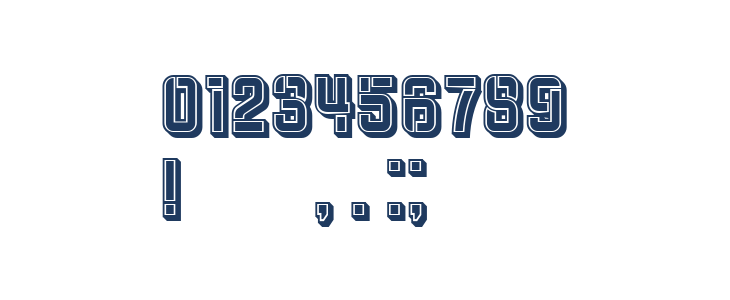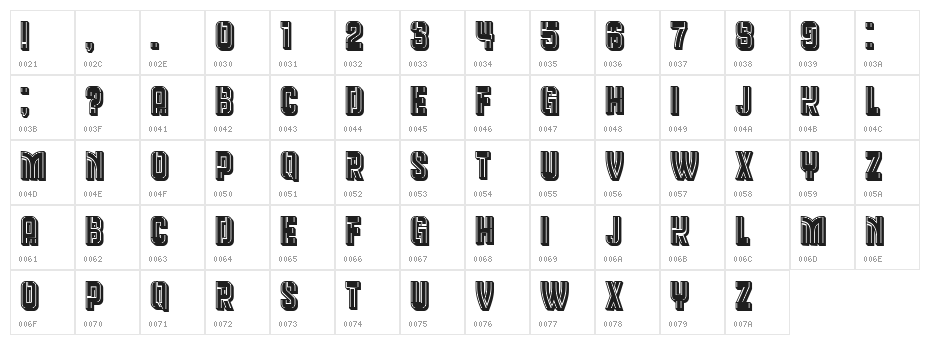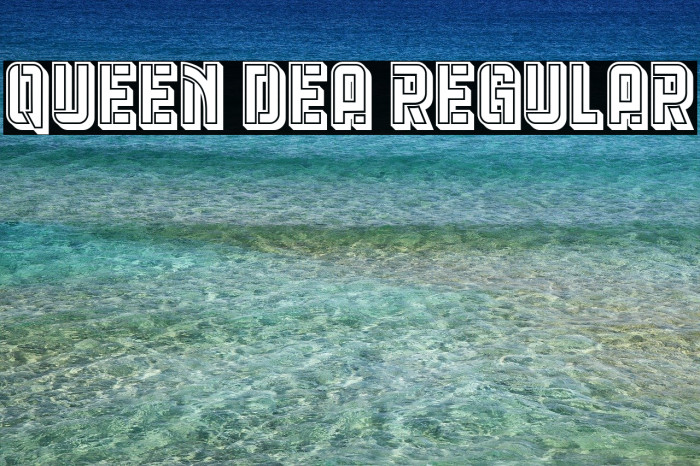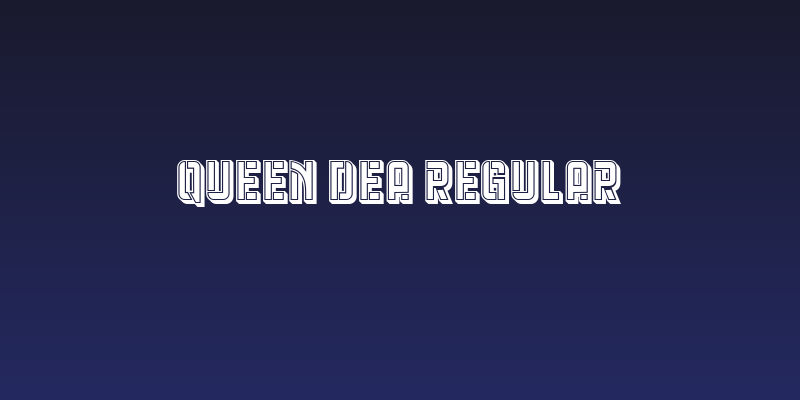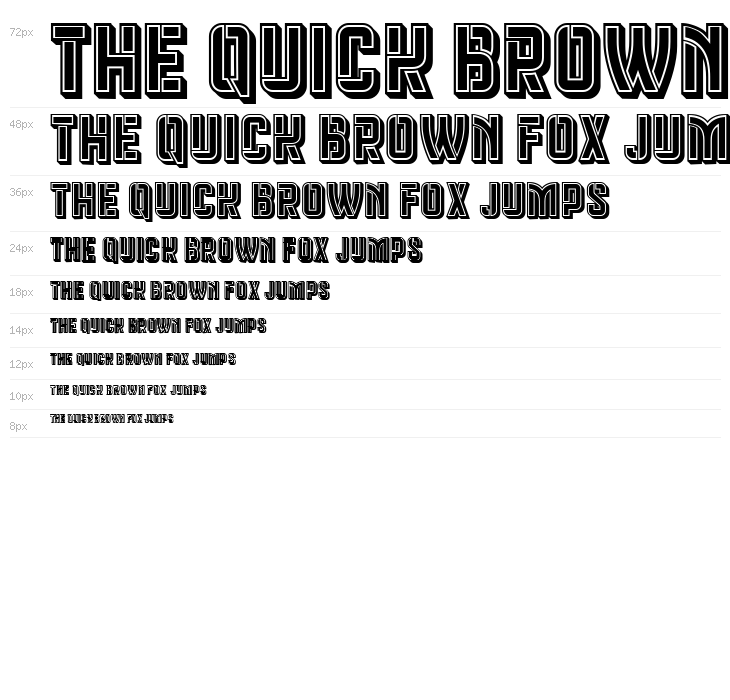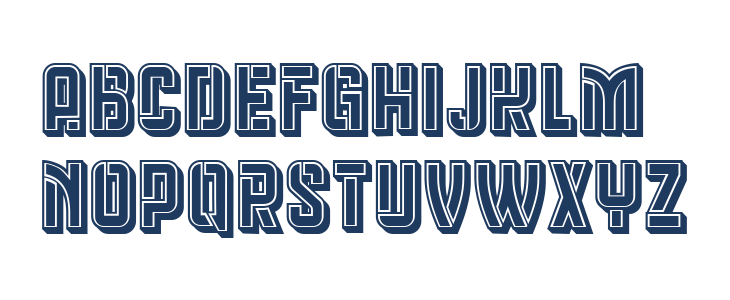
Queen Dea Regular Font
Queen Dea Regular Description
This font features a bold, geometric design with a distinct three-dimensional effect. Each character is outlined with a thick border, creating a striking visual impact. The letters are uppercase and have a blocky, angular style, which gives them a modern and industrial feel. The numbers and punctuation marks follow the same design principles, ensuring consistency across all characters. This font is ideal for projects that require a strong, attention-grabbing typeface.